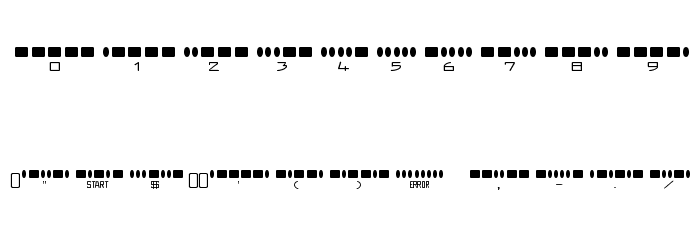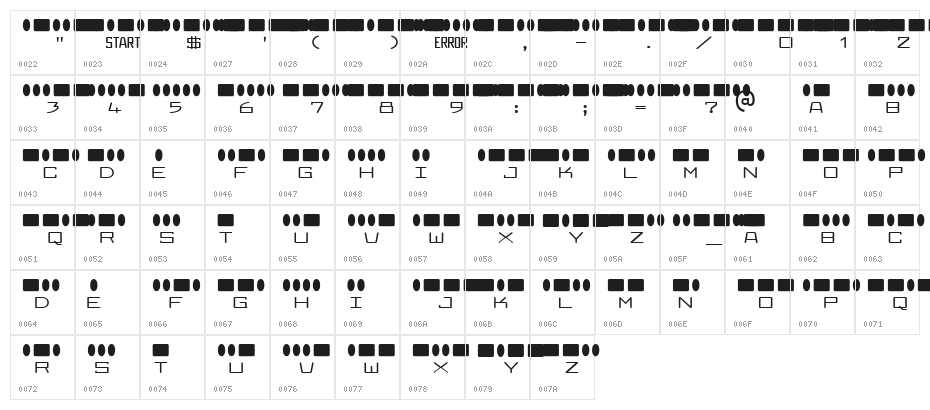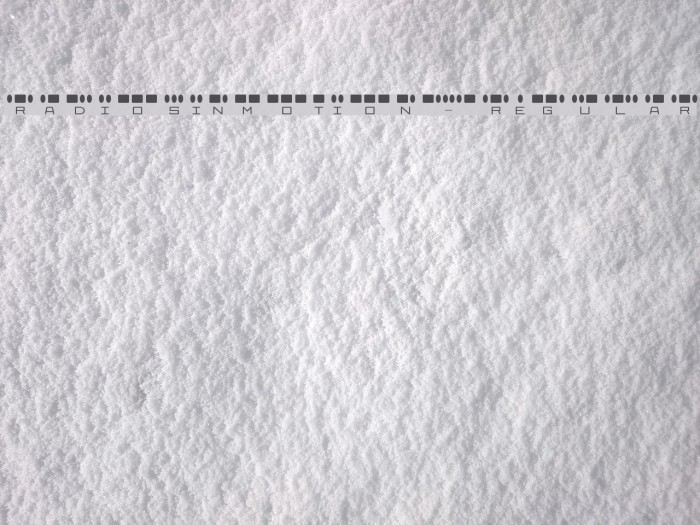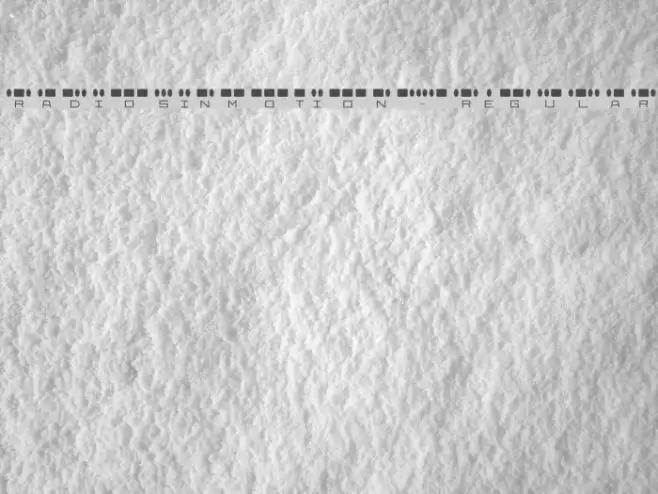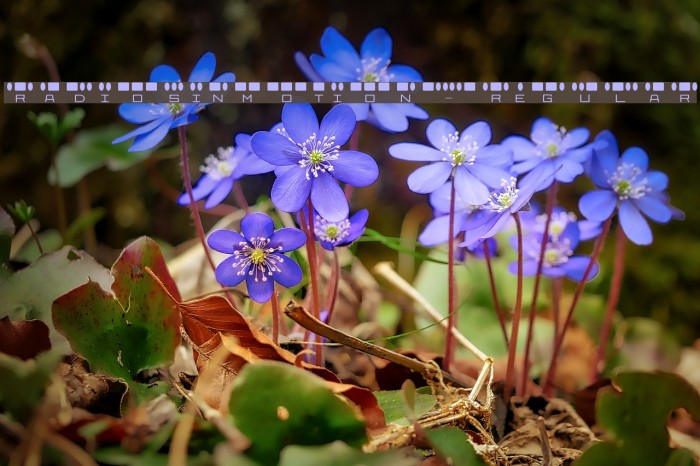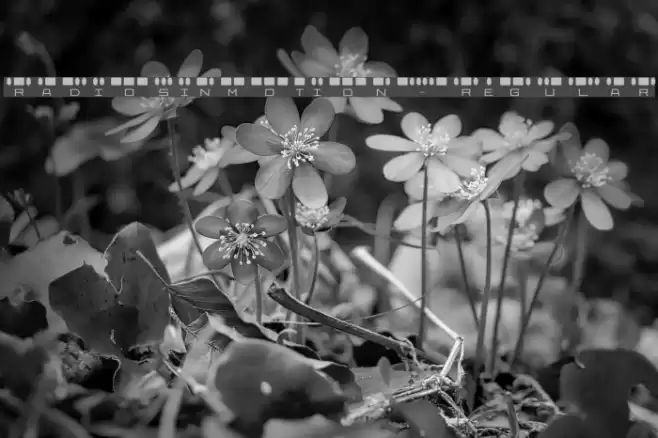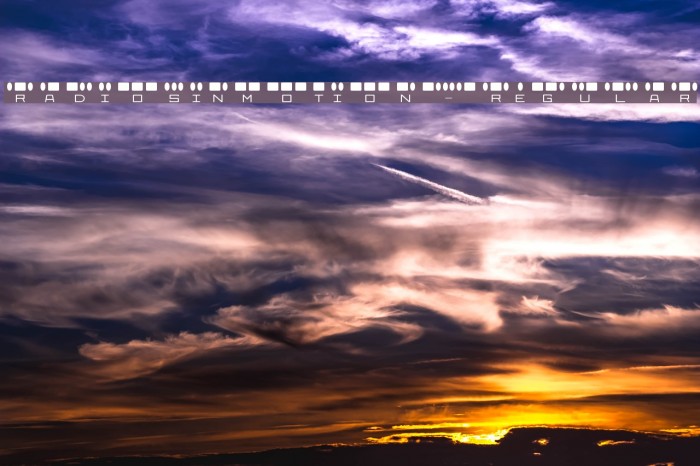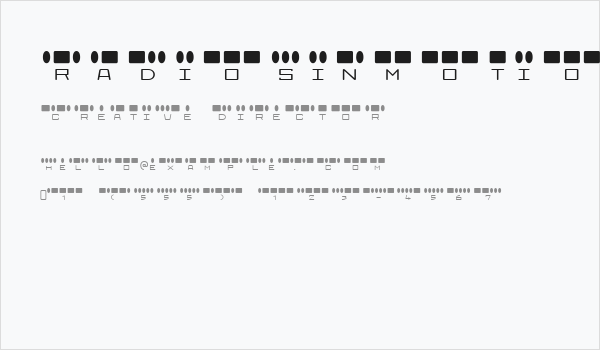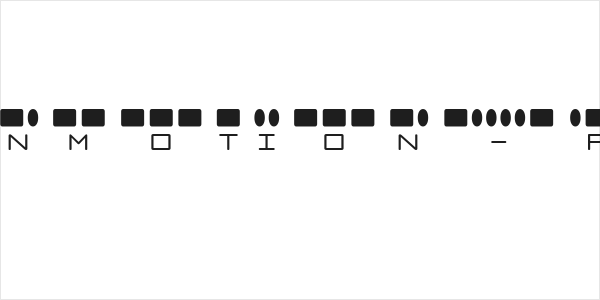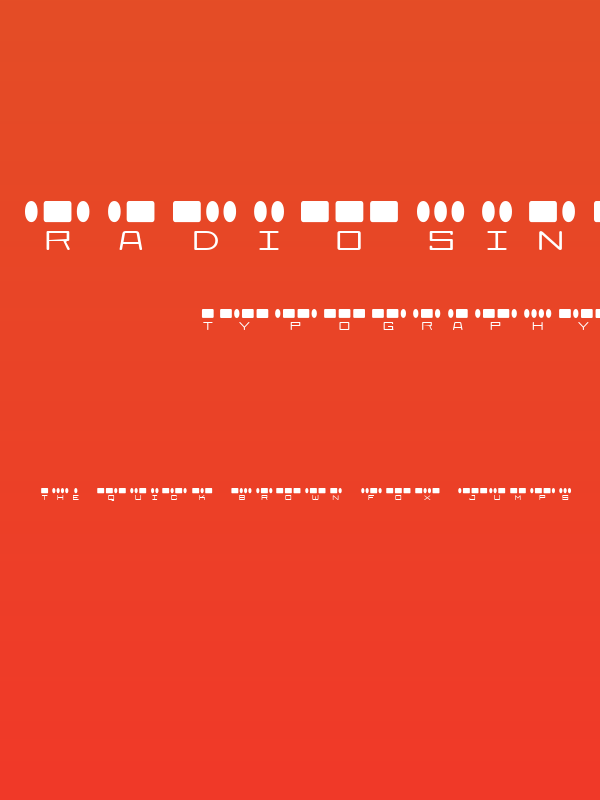
RadiosinMotion-Regular Font
RadiosinMotion-Regular Description
This font is a creative and unique design that mimics Morse code, combining dots and dashes to form each character. The uppercase and lowercase letters, as well as numbers, are represented in a consistent pattern, making it an intriguing choice for projects that require a coded or secretive aesthetic. The characters are evenly spaced, maintaining a uniform appearance across the board. This font is ideal for themed designs, particularly those related to communication, technology, or historical contexts. Its distinct style ensures that it stands out, making it suitable for attention-grabbing headlines or artistic projects.
| Use Case | Headlines, Artistic projects |
| Proposed Projects | Ideal for themed designs related to communication, technology, or historical contexts. |